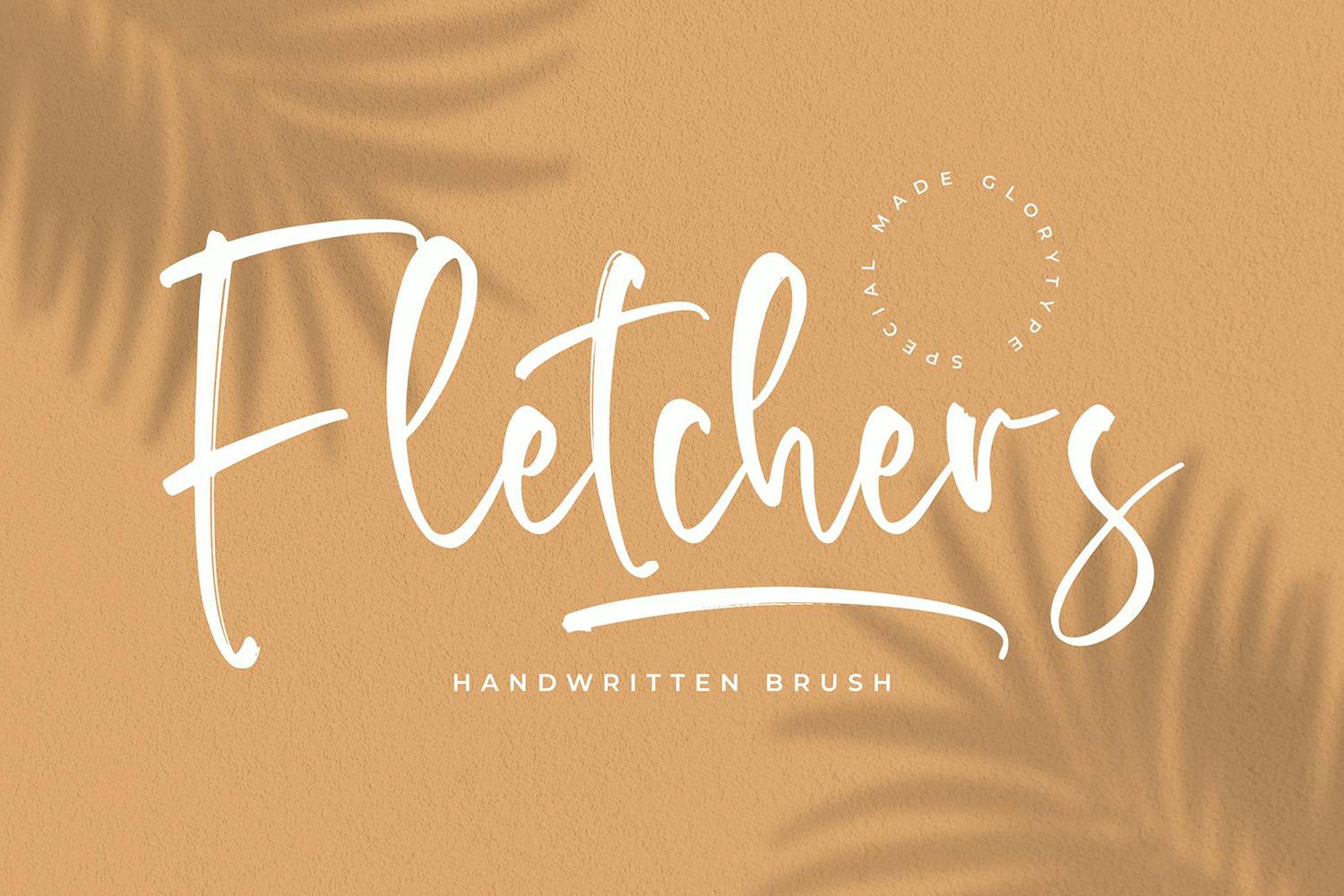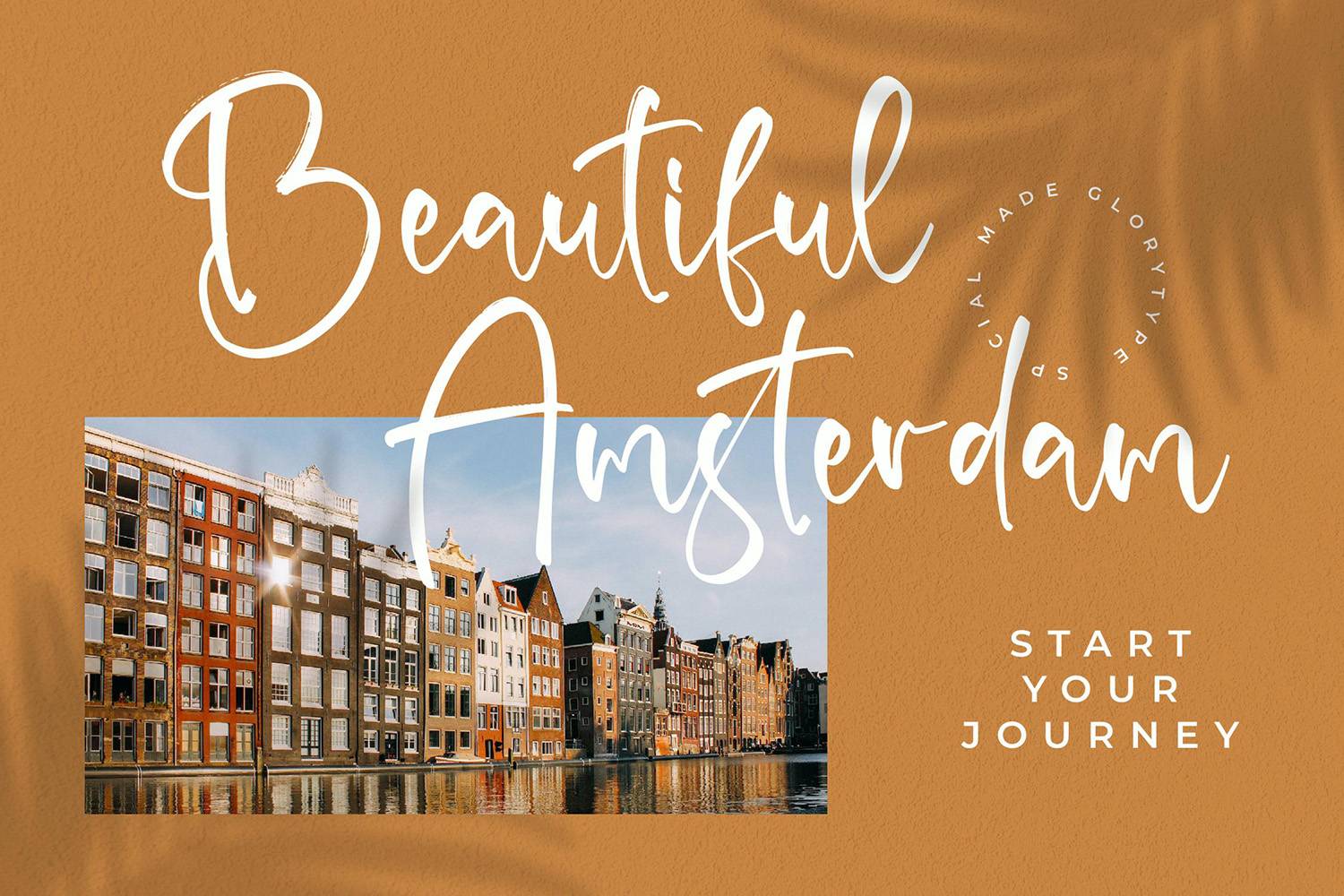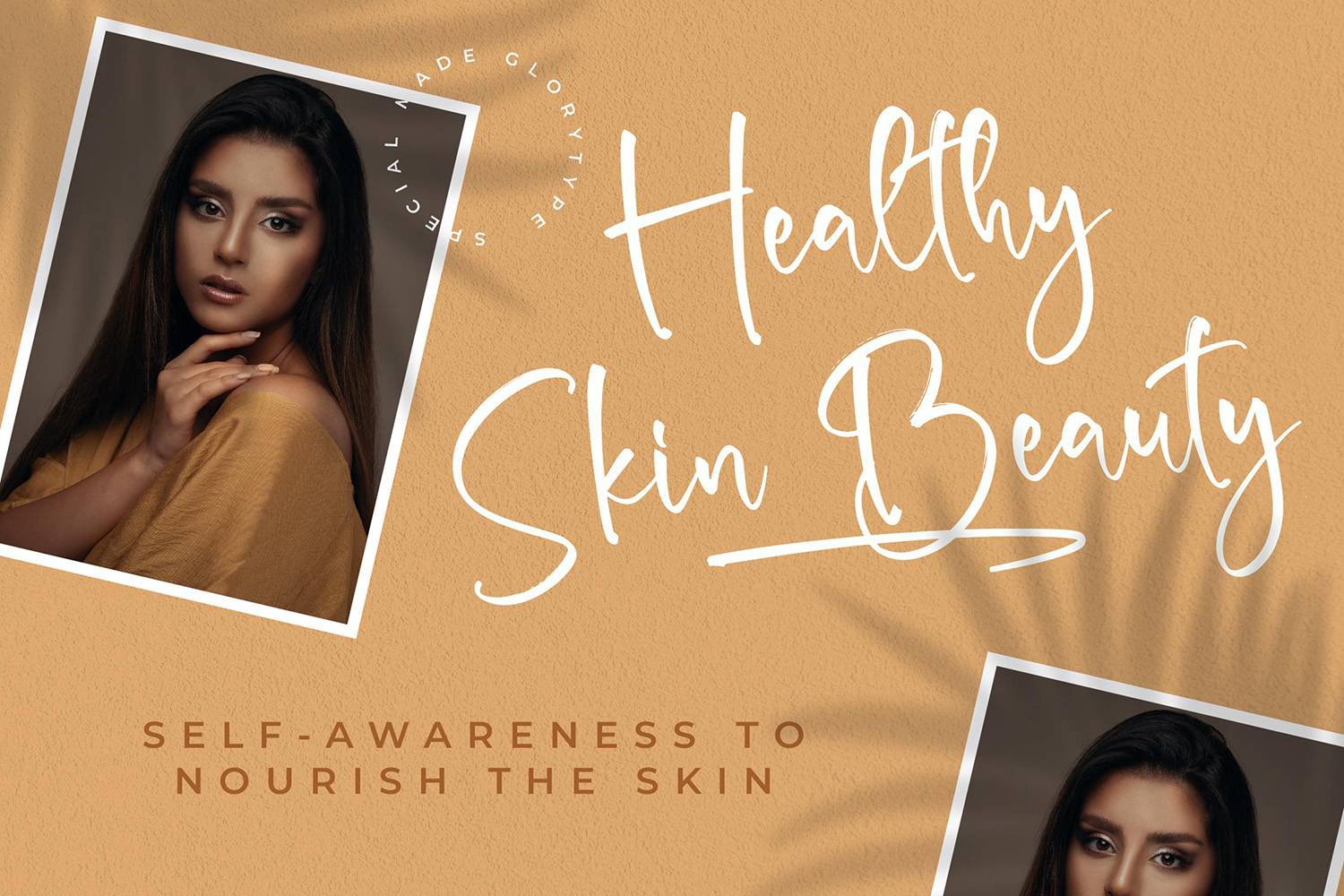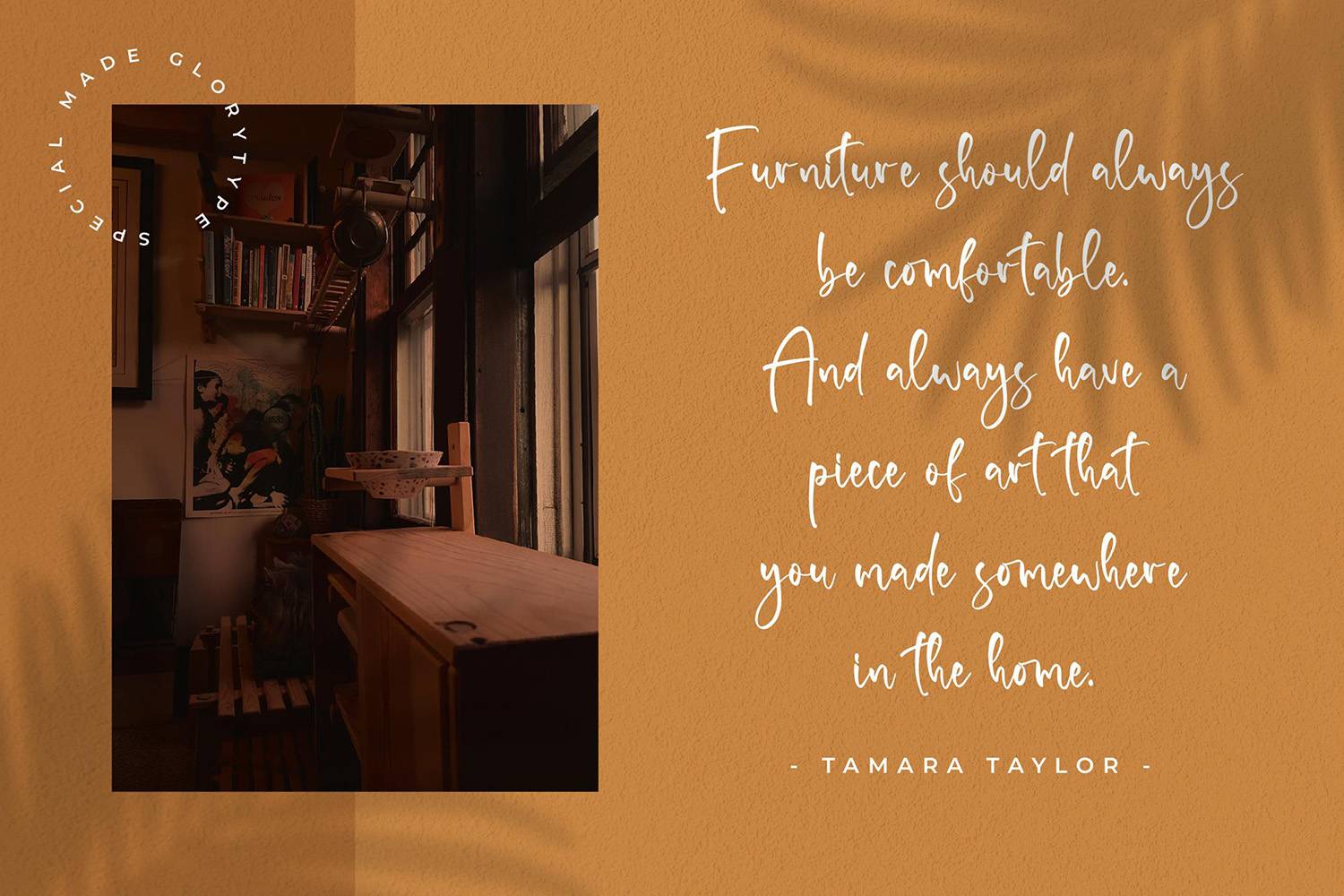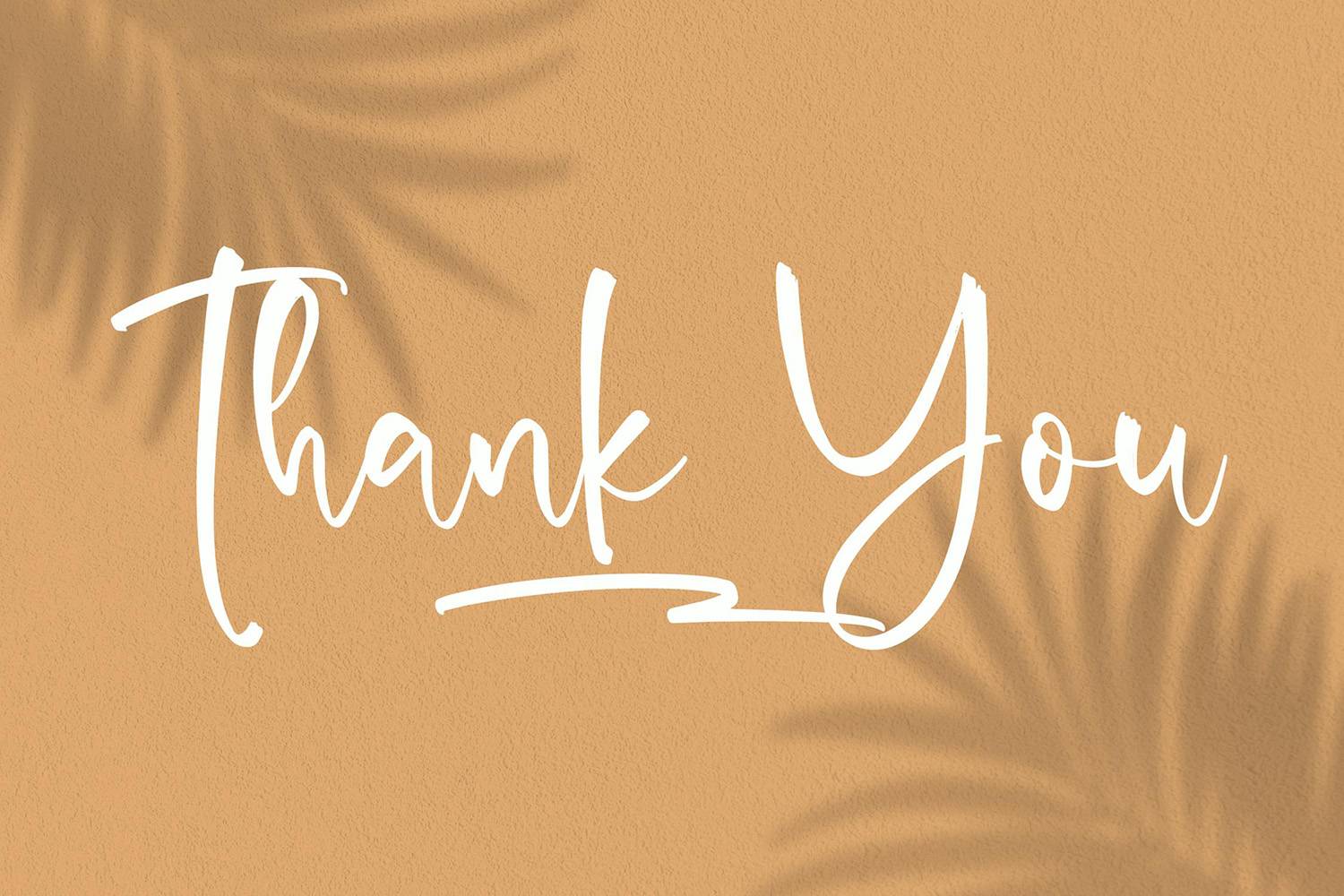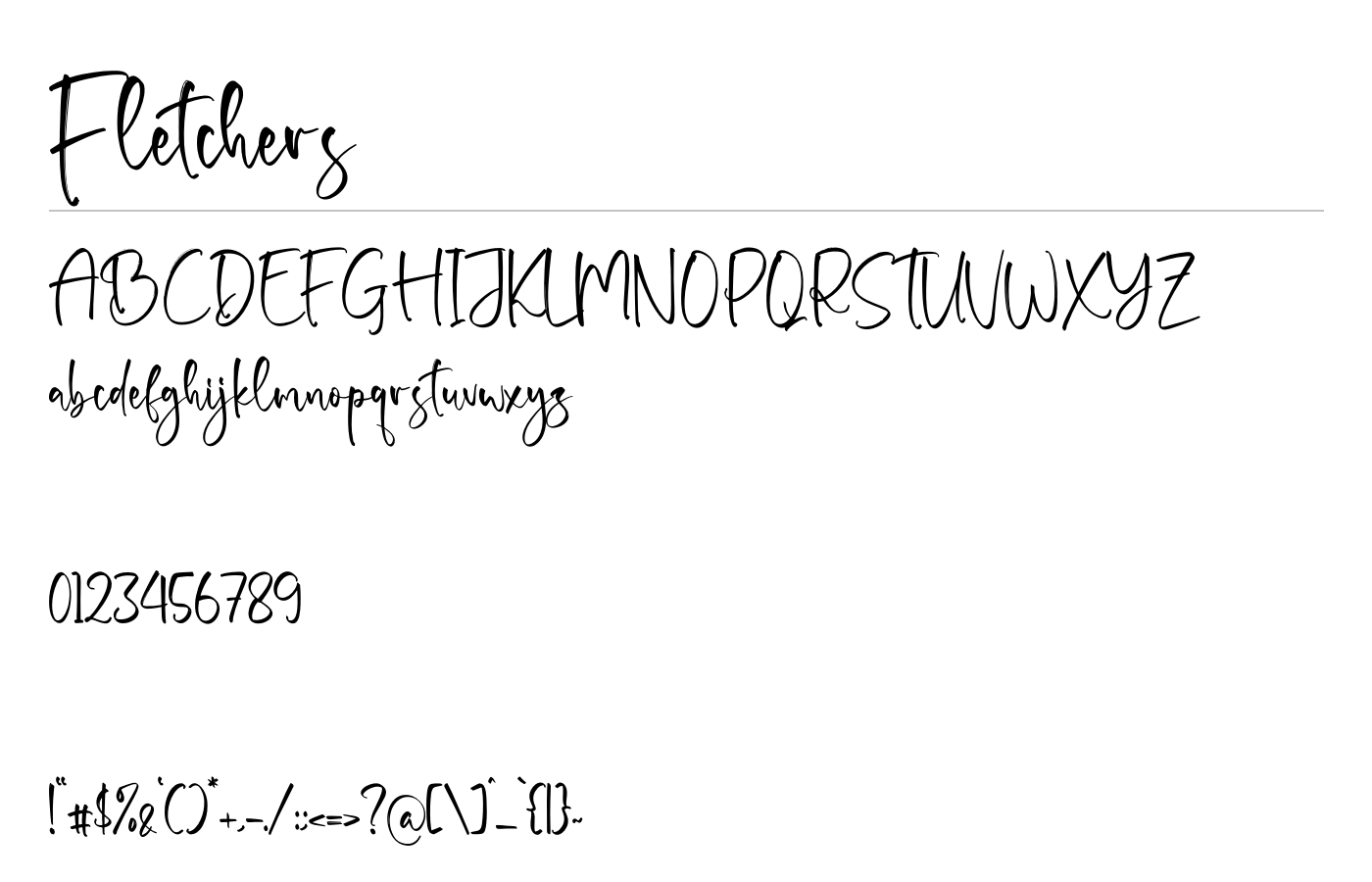
Fletchers Font is a casual, handwritten script with a light, airy feel that combines playful charm with legibility. Its tall, narrow letterforms and smooth, slightly irregular strokes give it a friendly, approachable personality, making it ideal for informal branding, personal projects, and creative designs. This font works well for headlines, logos, and invitations where a warm, human touch is desired.
Fletchers Font
About Fletchers Font